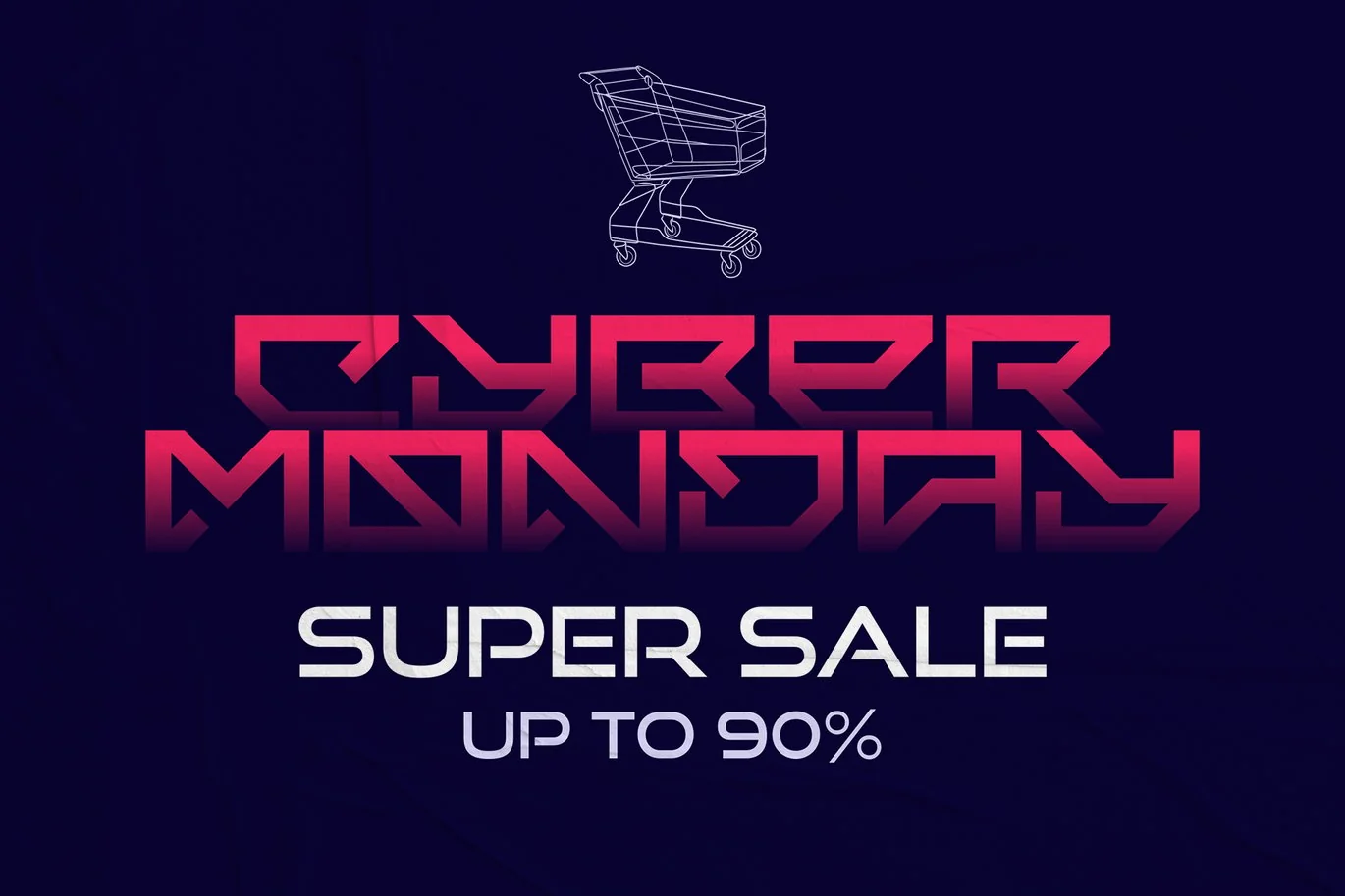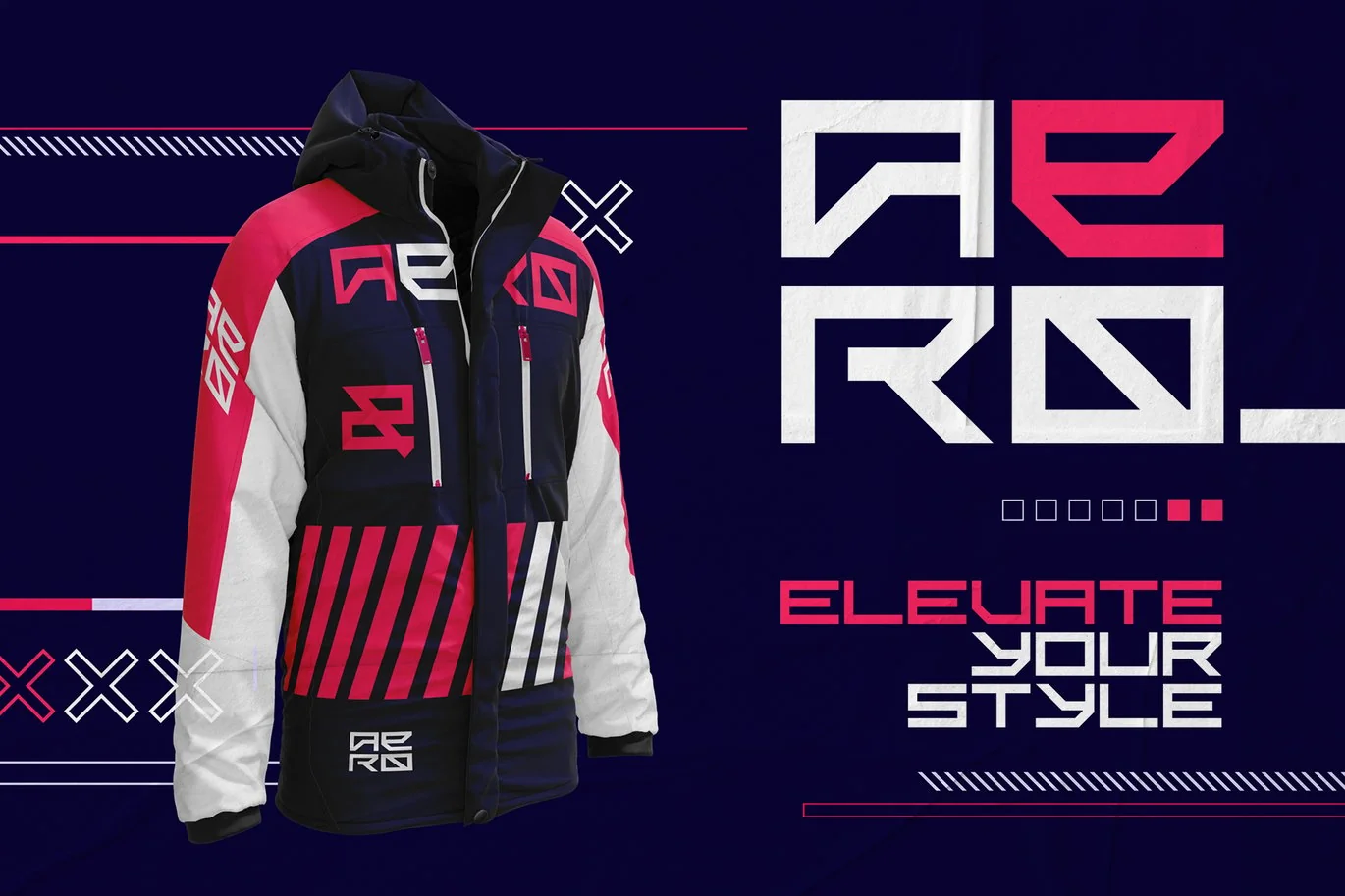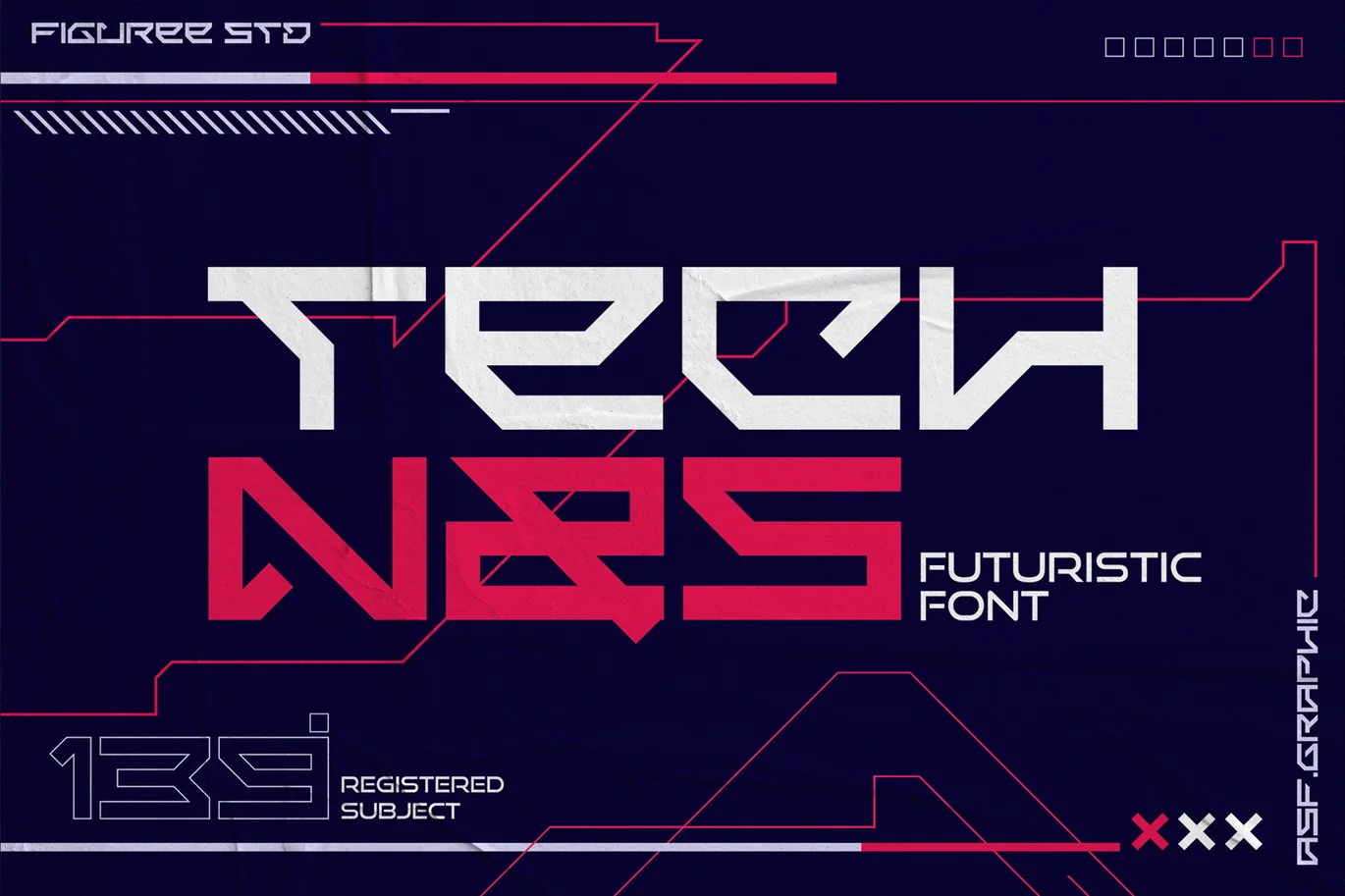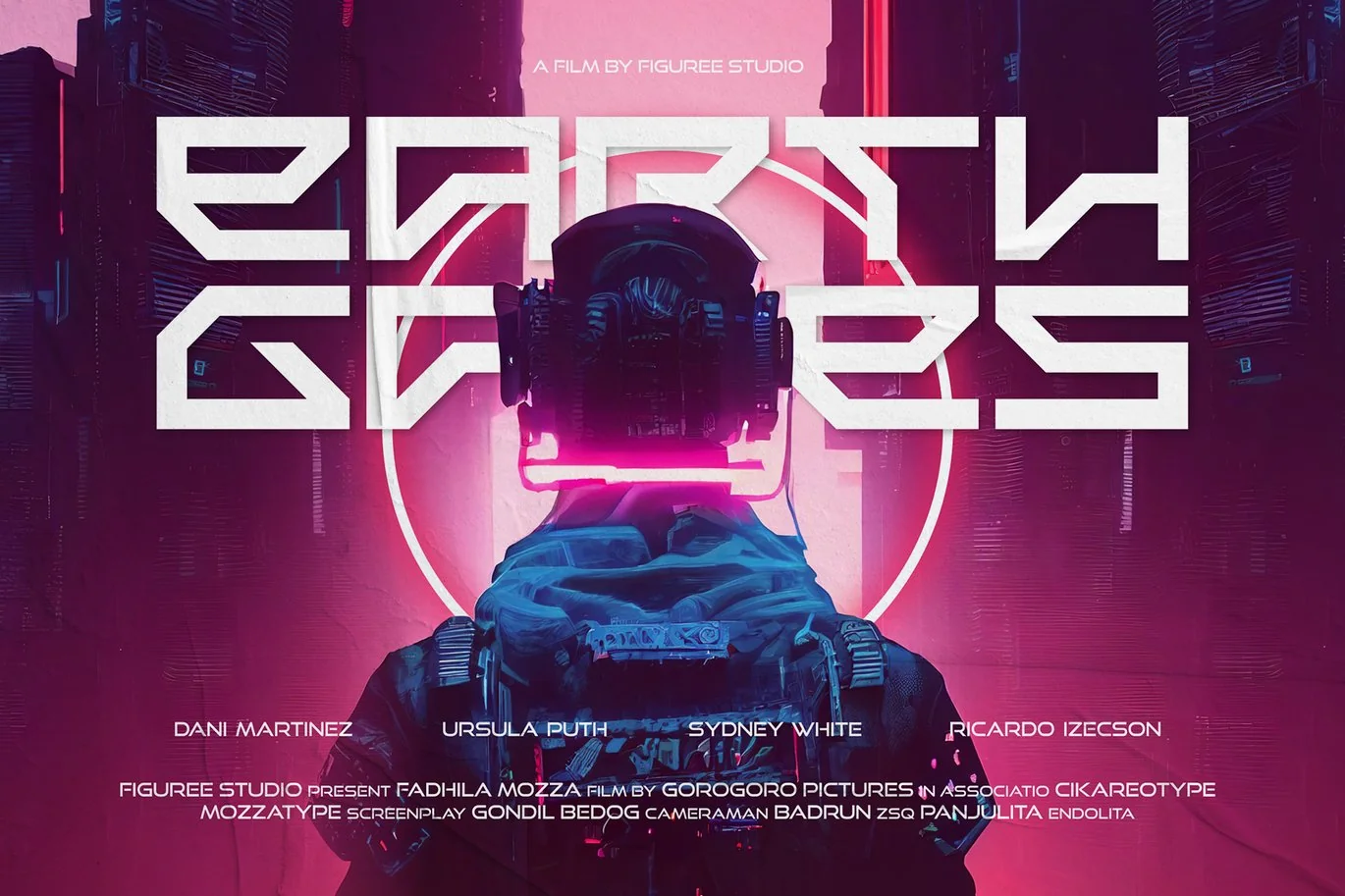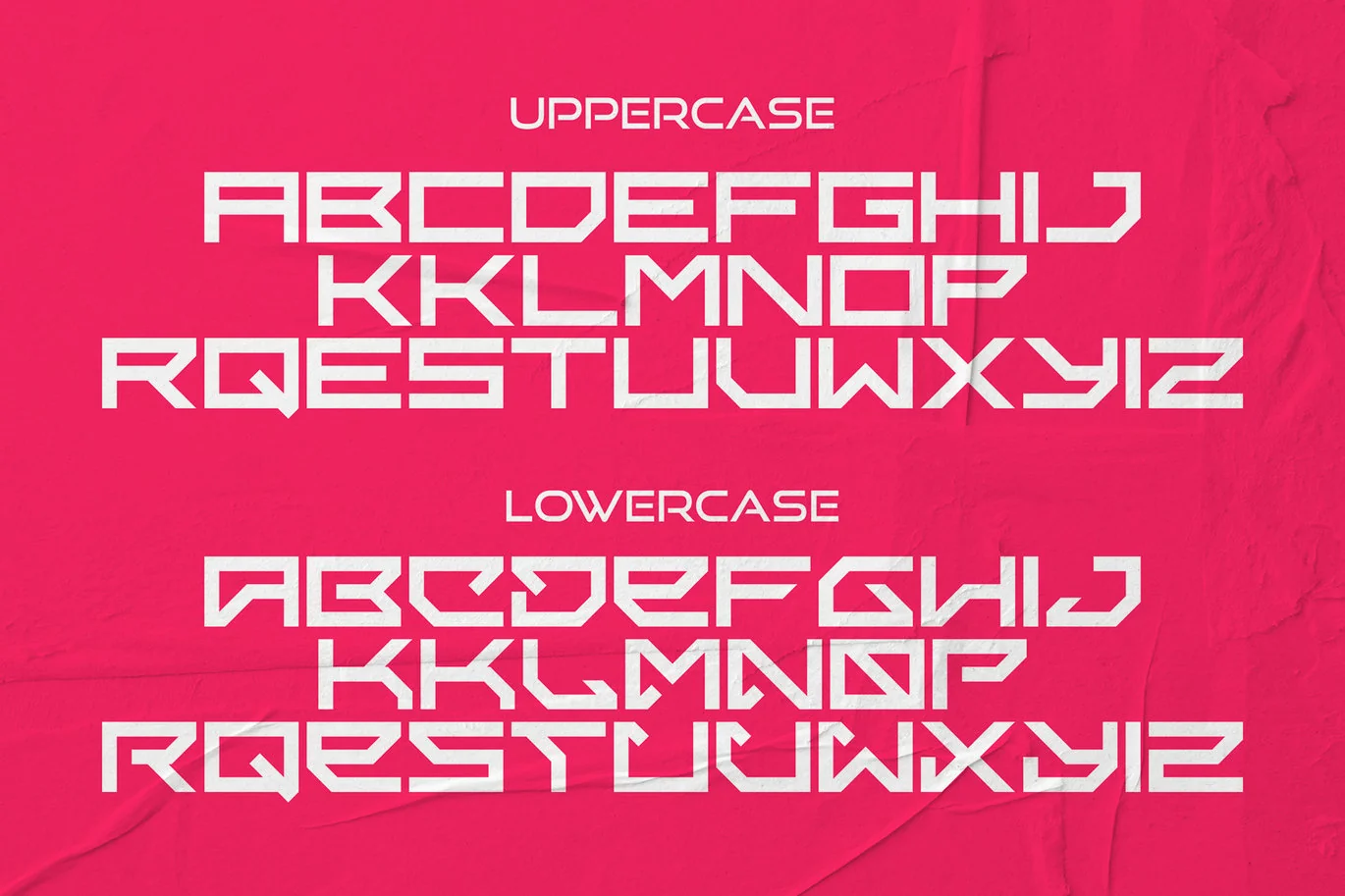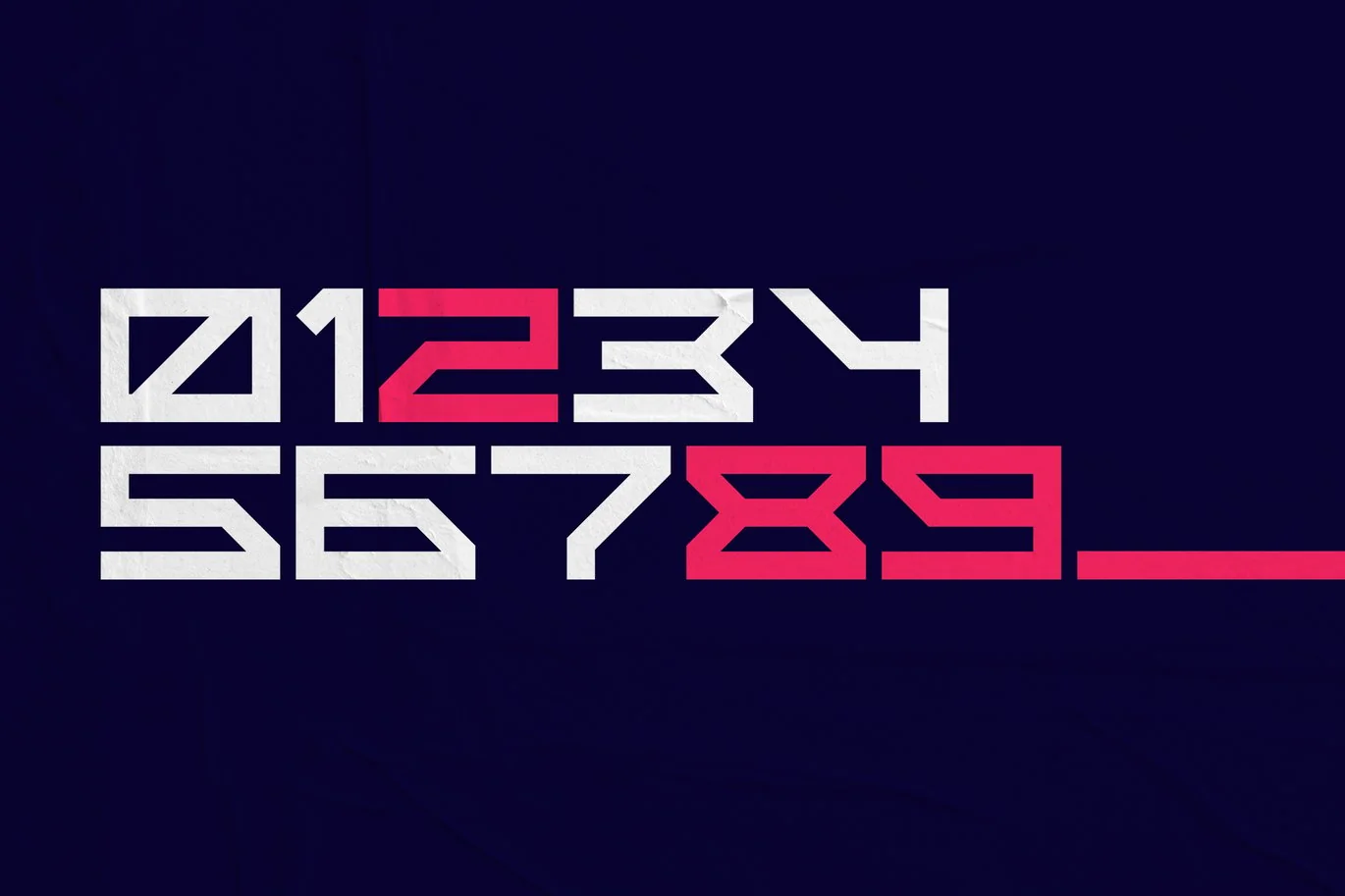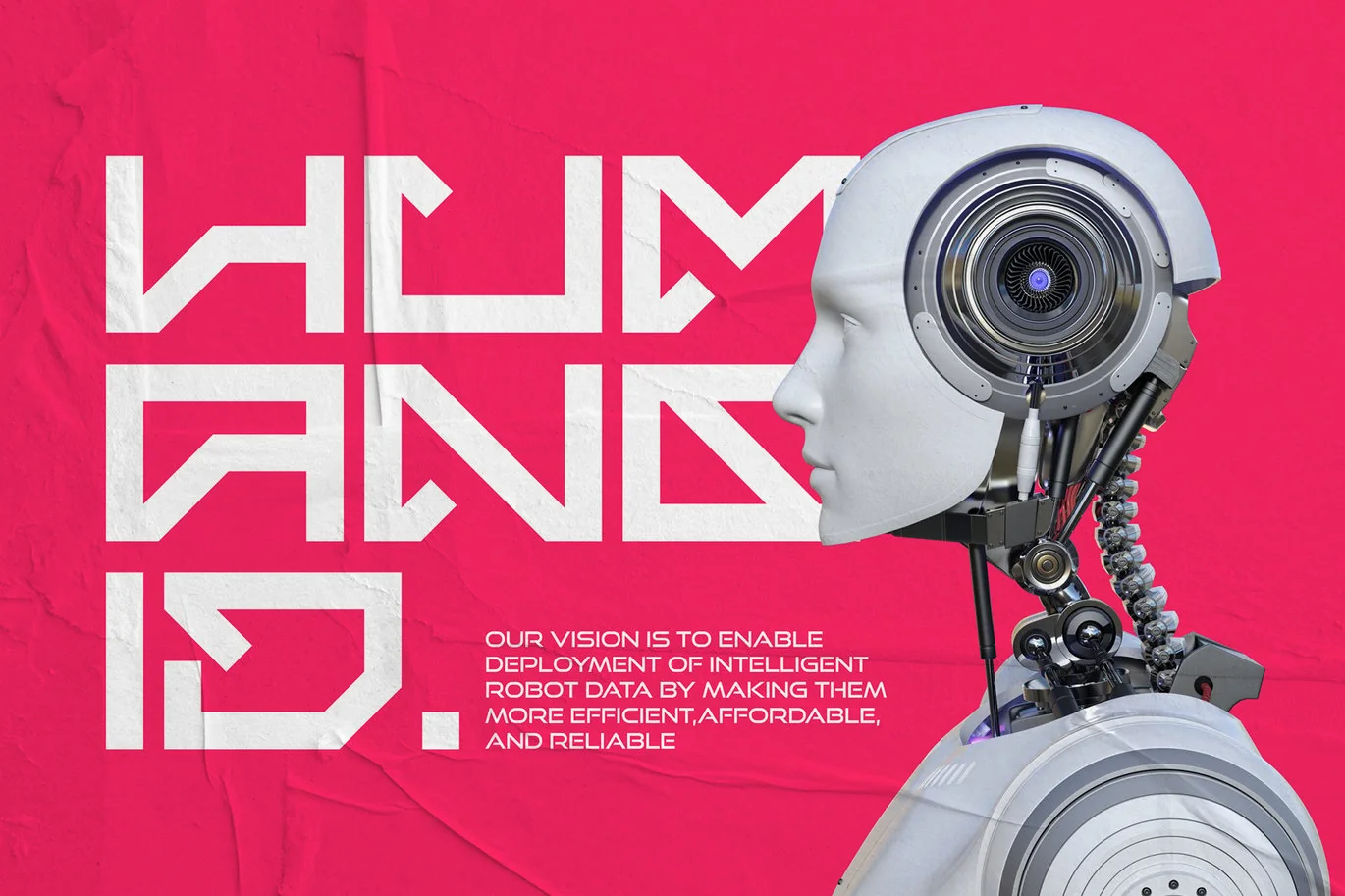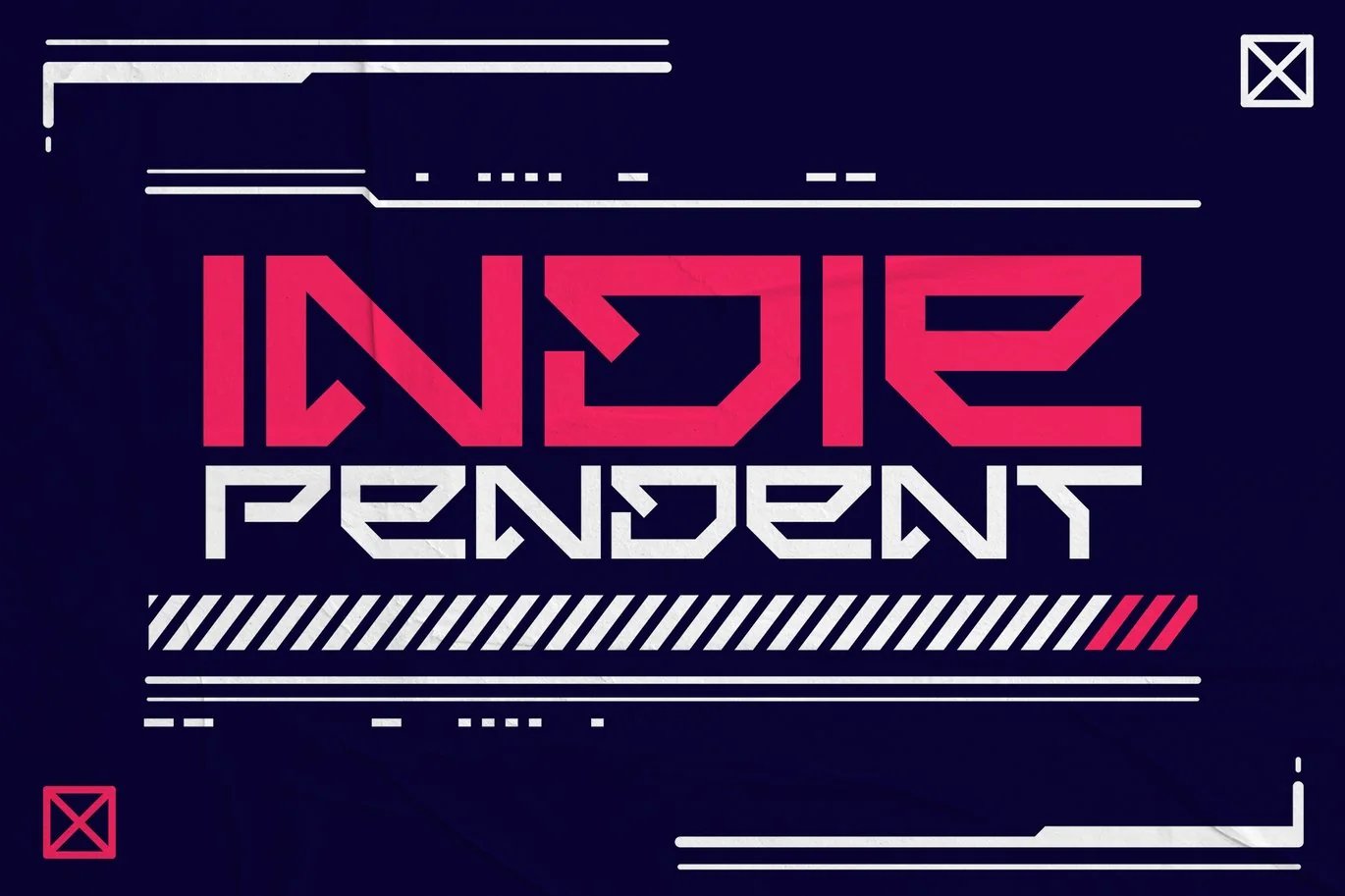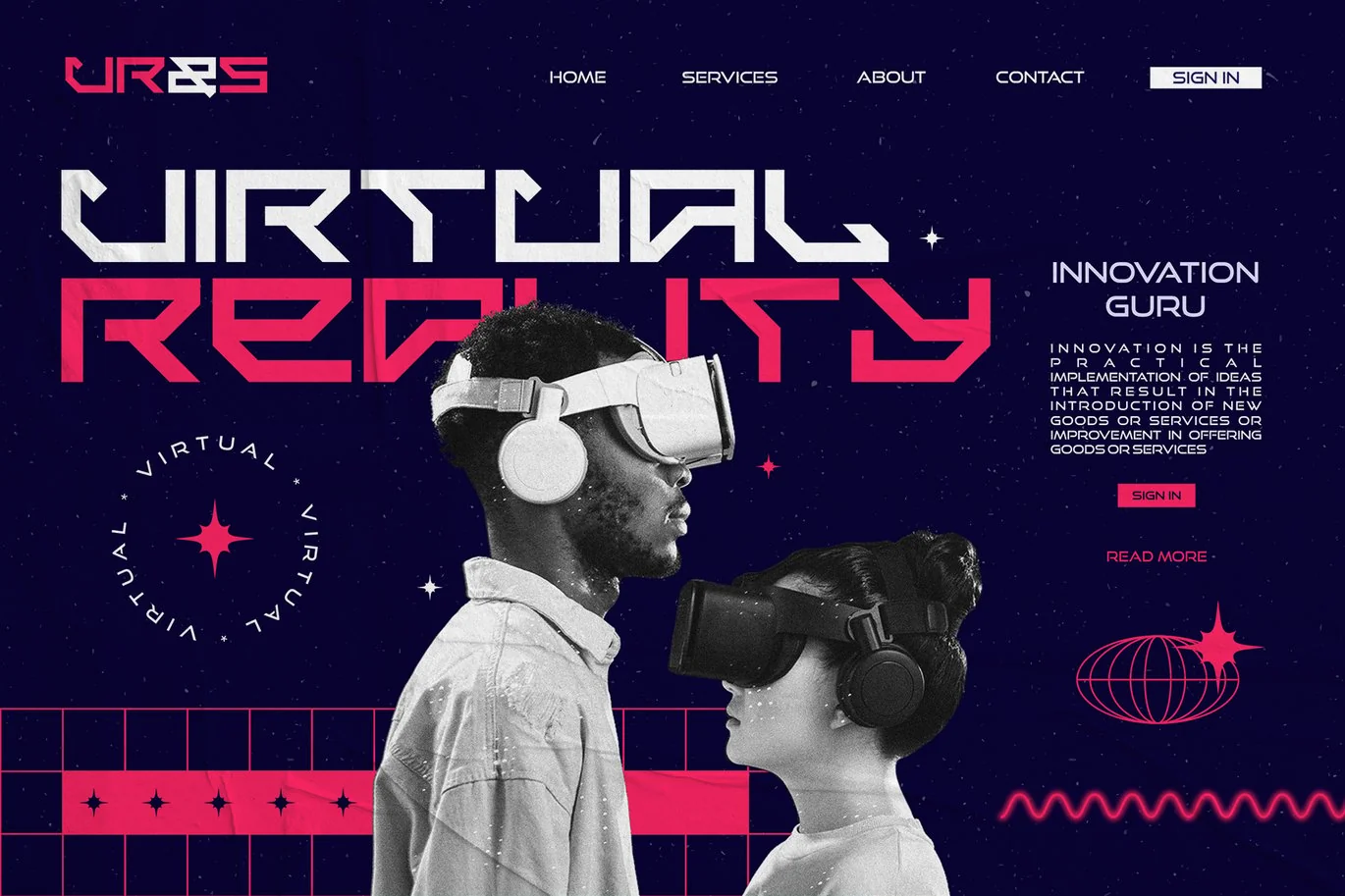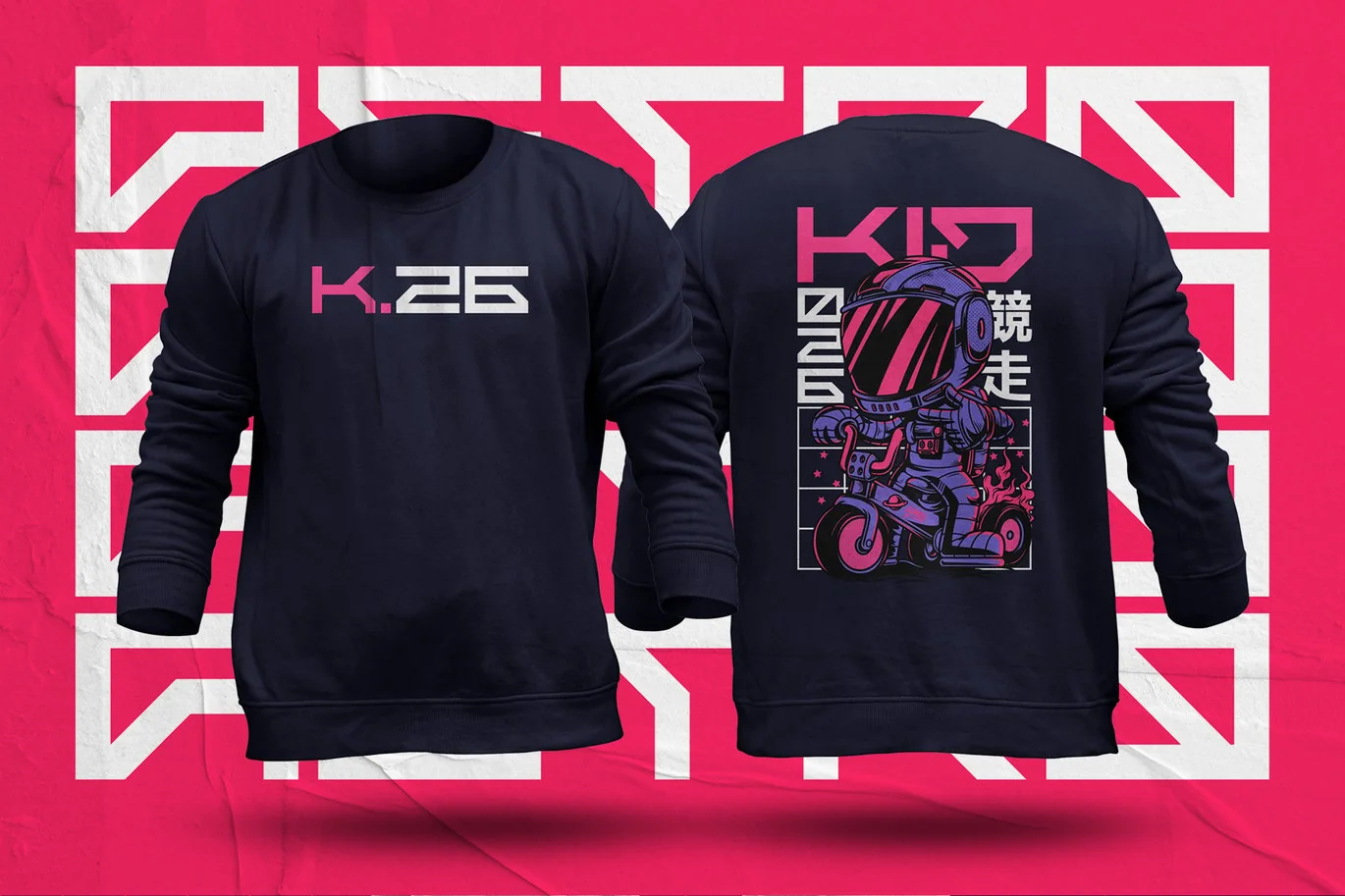
Technos – Futuristic Font
Technos is a futuristic font that carries uppercase and lowercase characters with a set of numbers that showcase a futuristic unique design in addition to galactic alternates and a cyberpunk theme. Take a trip through time and use it for movie posters set in space or in the future. Very suitable for sci-fi enthusiasts, create cards and personalized artwork, but don’t let the adventure stop with you. Use Technos for UX /UI, and techno projects and allow the rest of the world to get a glimpse of what the future may hold.
- Versatile for branding, headline, or printing product